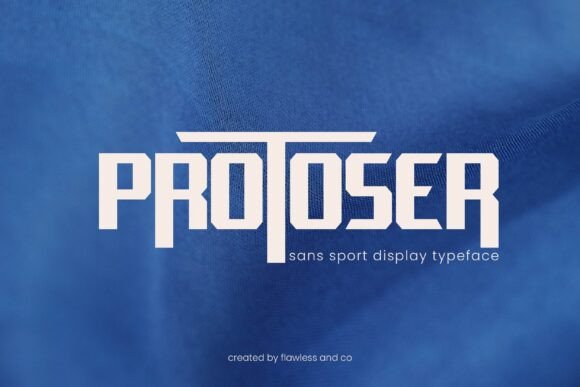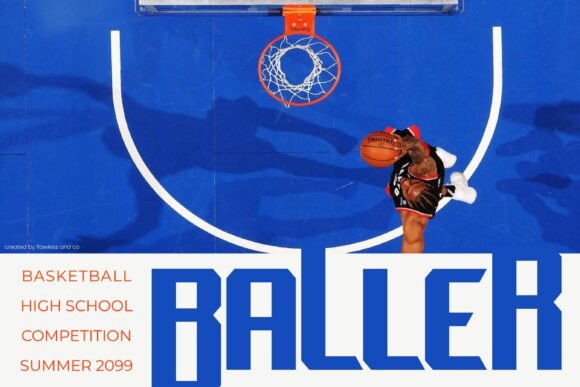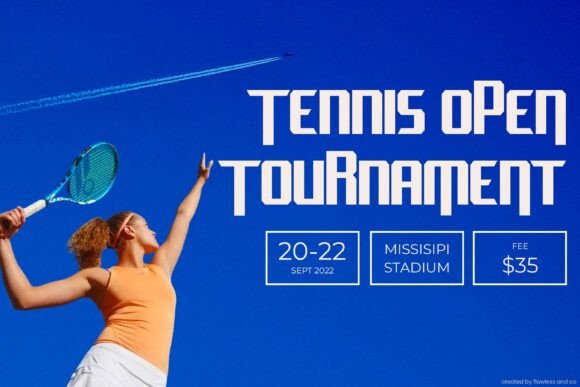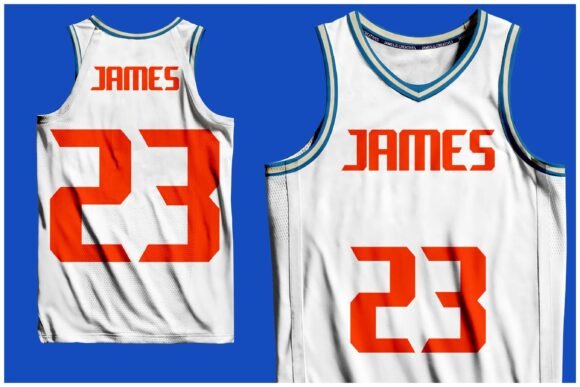
Protoser Font: A Bold Display Font for Sports & Modern Branding
About the Protoser Font
Explore the possibilities with Protoser Font, a font that offers both beauty and functionality. Protoser is a bold and dynamic sans serif sport display typeface designed to capture attention and deliver a strong visual impact. Its sharp geometric structure and modern styling make it perfect for athletic branding, team logos, sports posters, and energetic headlines. PROTOSER exudes power and confidence, making it the ideal choice for projects that need a fearless and competitive edge.
Protoser’s strong geometric forms make it unsuitable for body text or lengthy paragraphs; its boldness overwhelms readability at smaller sizes. It excels in large-scale applications such as headlines, posters, and impactful branding elements where its assertive personality shines. Avoid using it in user interfaces or situations requiring high legibility.
For optimal pairings, consider a clean, neutral sans-serif like Open Sans for body copy to balance Protoser’s dynamism. Alternatively, a classic serif like Garamond can create sophisticated contrast, especially in projects aiming for a blend of modern energy and traditional elegance. A playful script font, used sparingly, could inject a touch of personality for specific design elements.
Protoser’s core personality is definitively bold and assertive. It’s ideally suited for brands and projects conveying power, speed, and competition—think sports apparel, energy drinks, or technology companies emphasizing innovation and cutting-edge design.
Protoser Font Usage Examples
Protoser Font Example